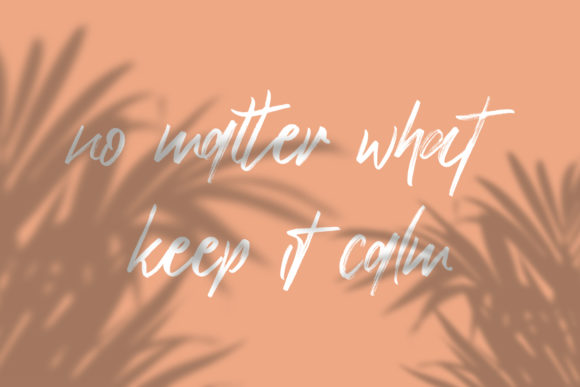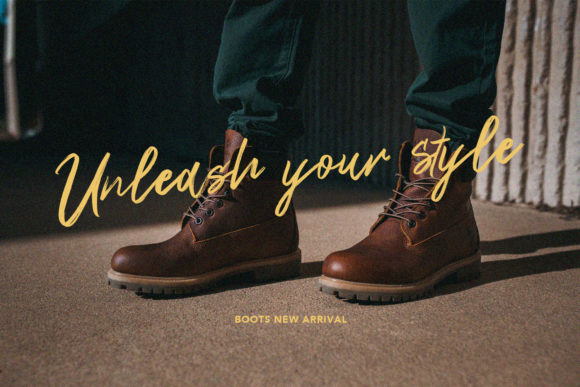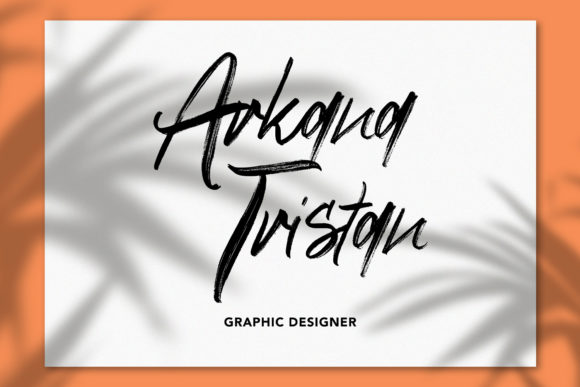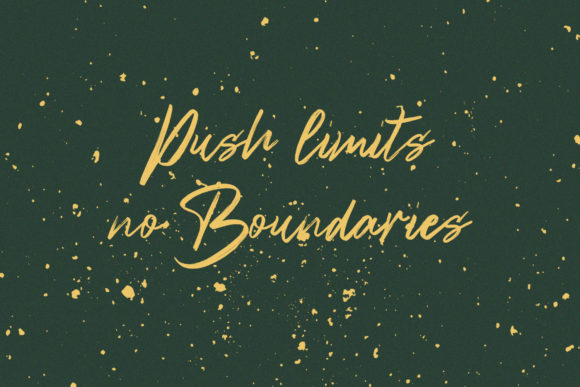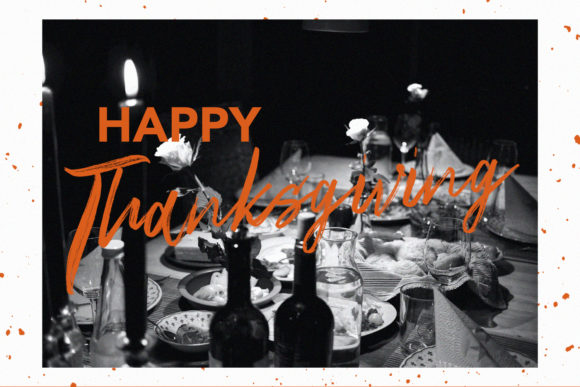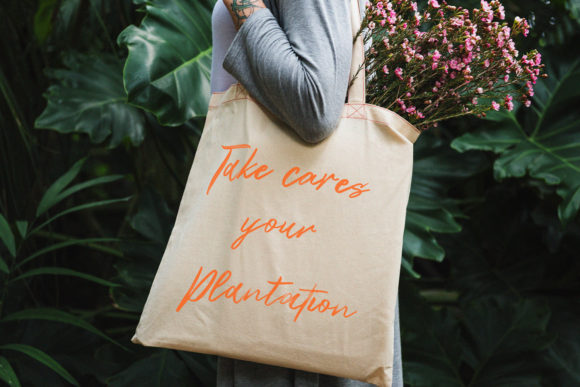
The Designer’s Delight: A Deep Dive into Crotches Font
I’ll never forget the time I was working on a branding project for a trendy boutique, and I just couldn’t find the perfect font to capture their playful yet sophisticated vibe. The client was specific about wanting something that wasn’t too thin or too thick, and I was on the verge of giving up. That’s when I stumbled upon Crotches Font, and it was love at first sight! 💕
As a designer, I’ve always been on the lookout for fonts that can elevate my projects from good to great. And Crotches Font has been a game-changer. In this article, I’ll share my honest review, a step-by-step guide on how to use it, and some valuable insights into its features and alternatives.
An Honest Review of Crotches Font
What I Love About Crotches Font ✨
- ✅ Balanced and varied strokes that give it a unique, hand-crafted feel
- ✅ Not too thin or too thick, making it perfect for a wide range of design projects
- ✅ Beautifully designed to add a touch of elegance and sophistication to any design
- ✅ Easy to read, even in smaller sizes
- ⚠️ Some users might find the font a bit too casual for very formal projects
- ⚠️ Limited availability of certain OpenType features in older software
The Story Behind Crotches Font
Crotches Font was designed with the intention of creating a beautiful, handwritten font that would add a touch of elegance to any design project. The designer wanted to create a font that was balanced and varied, with strokes that were not too thin or too thick. The result is a font that’s perfect for creative projects, such as branding, advertising, and packaging.
Q: What is Crotches Font?
A: Crotches Font is a fashionable brushed handwritten font designed to add a touch of elegance to any design project.
Q: Can I use Crotches Font in print projects?
A: Absolutely! Crotches Font is a versatile font that can be used in a wide range of design projects, including print materials such as brochures, flyers, and business cards.
Q: Is Crotches Font easy to read?
A: Yes, Crotches Font is designed to be easy to read, even in smaller sizes. However, it’s always a good idea to test the font in your specific design project to ensure it works well for your needs.